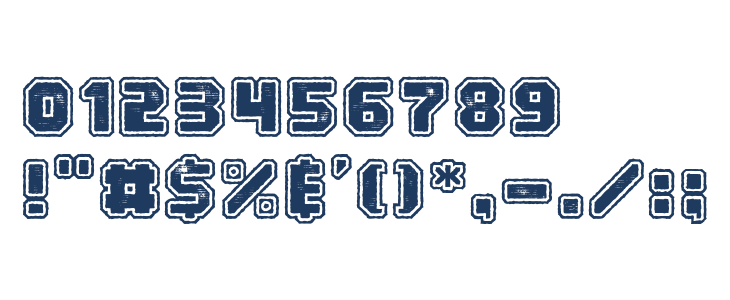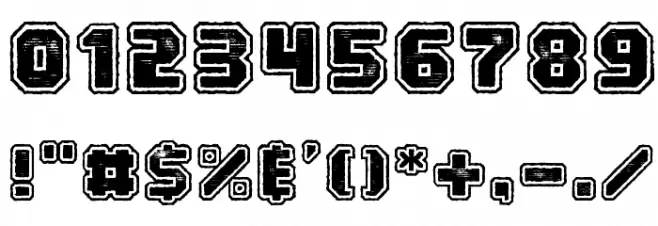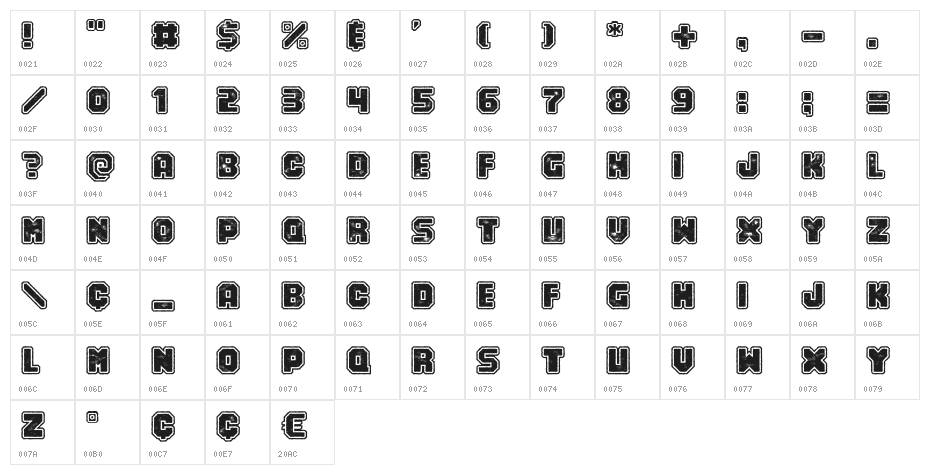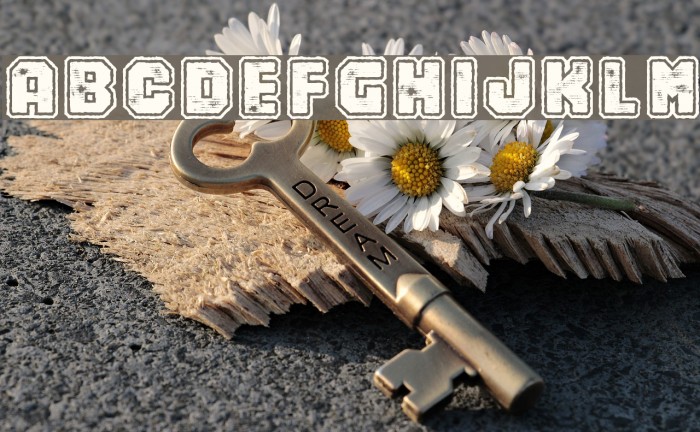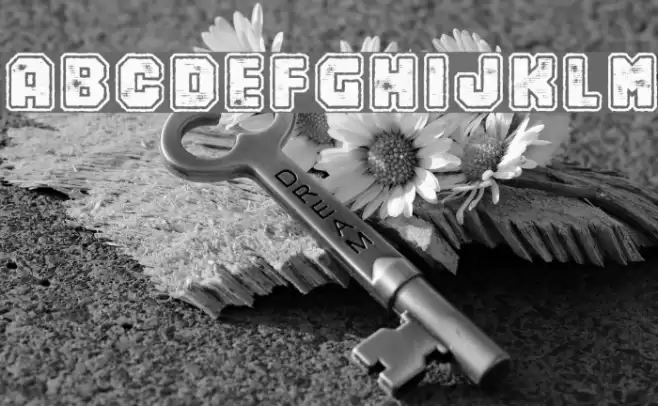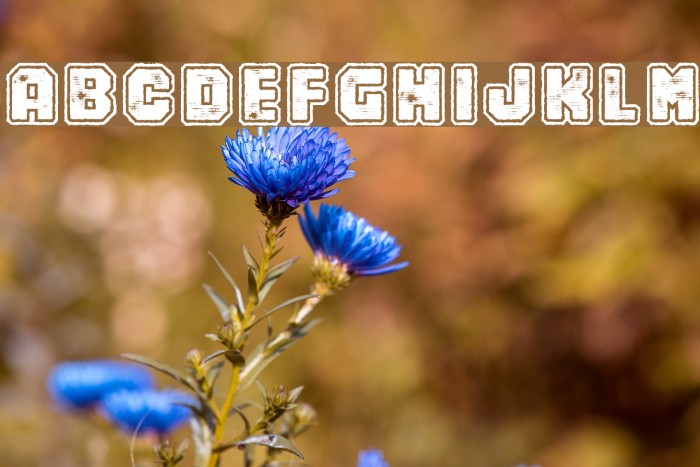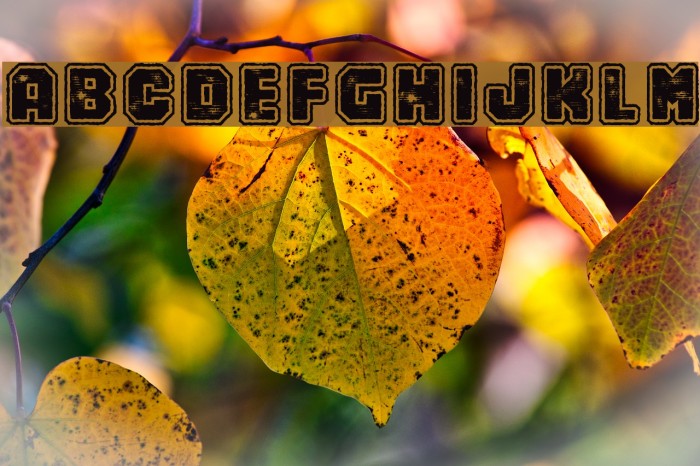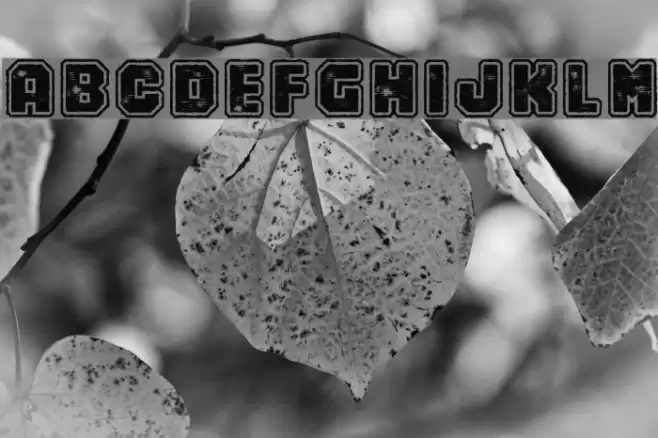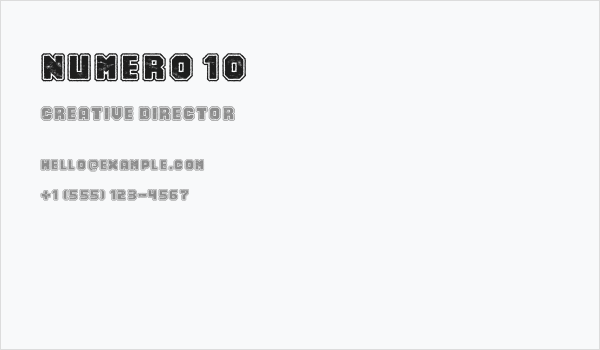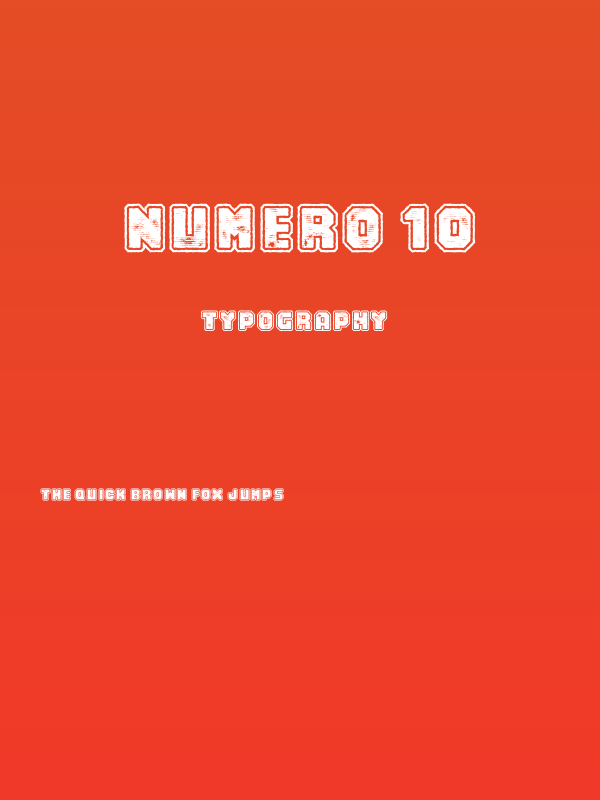
Numero 10 Font
Numero 10 Description
This font features a bold, distressed style with a vintage, industrial feel. Each character is outlined with a thick border, giving it a strong presence. The interior of the letters is textured, resembling a worn or weathered surface, which adds to its rugged charm. The geometric shapes of the characters are consistent, with straight lines and sharp angles, creating a sense of uniformity despite the distressed effect. This font is highly decorative, making it ideal for projects that require a bold statement or a retro aesthetic.
| Proposed Projects | Ideal for posters, logos, branding, and any design requiring a vintage or industrial theme. |